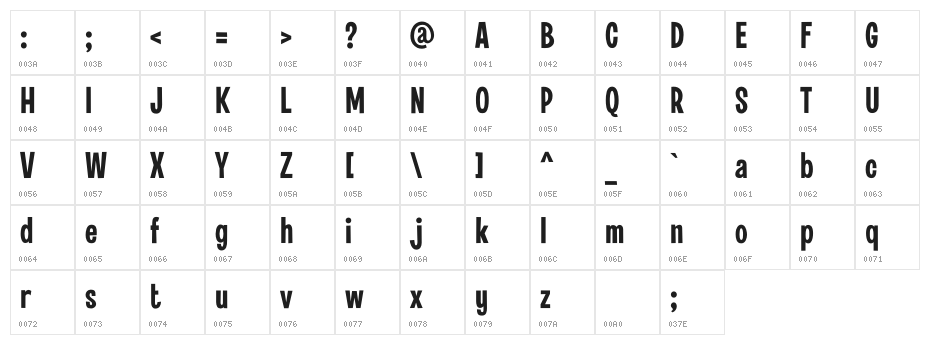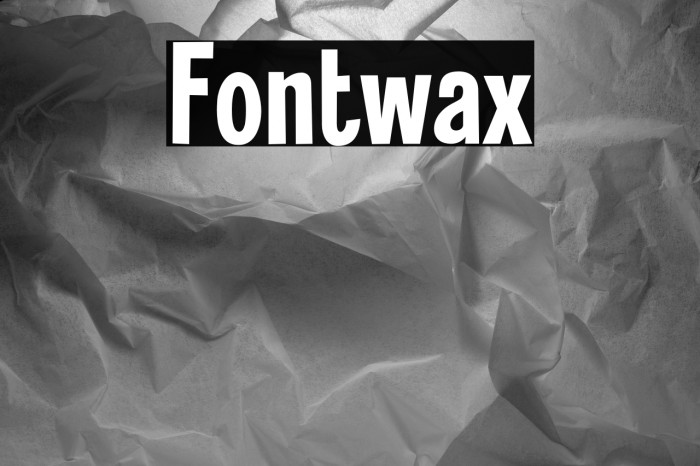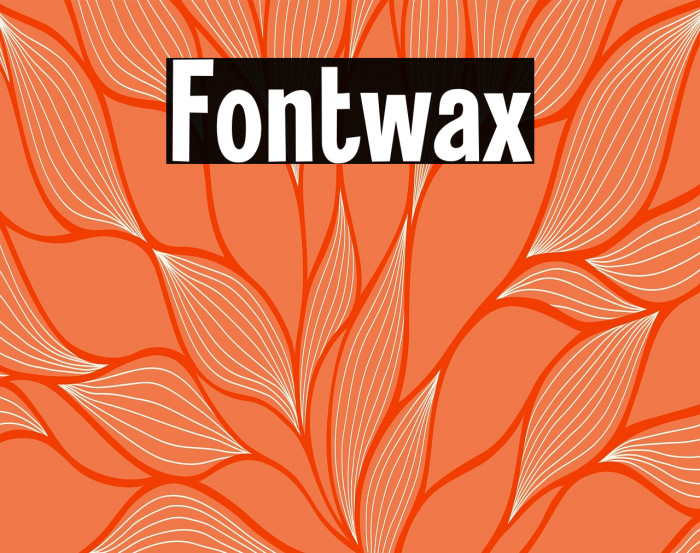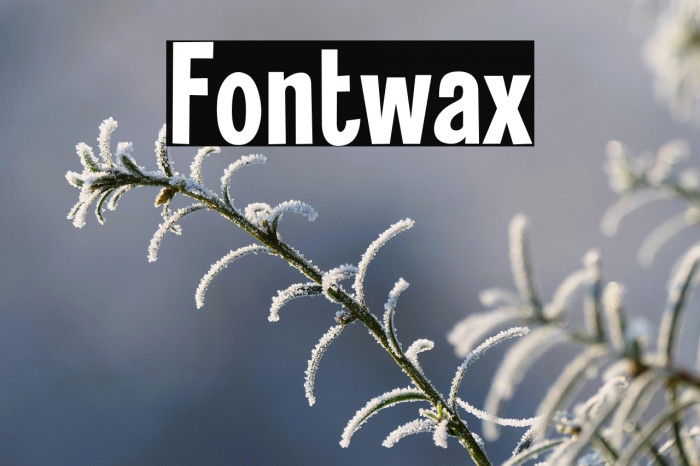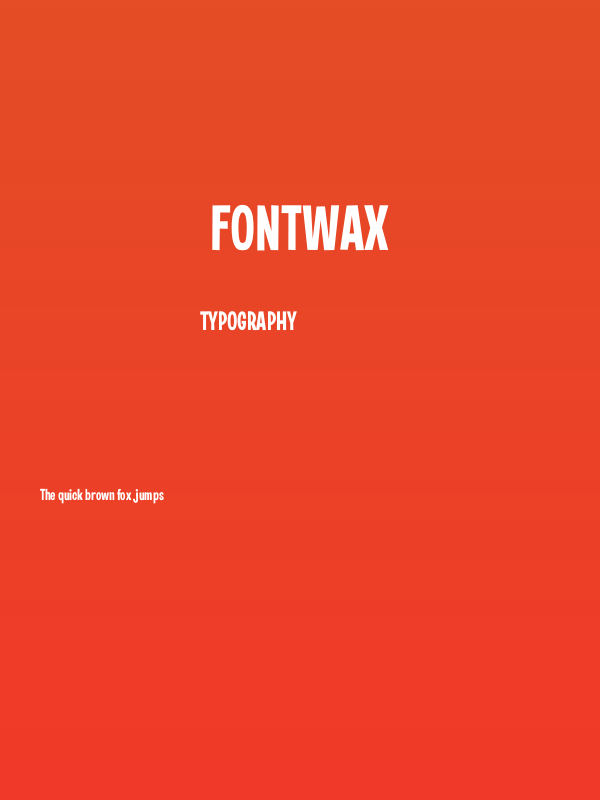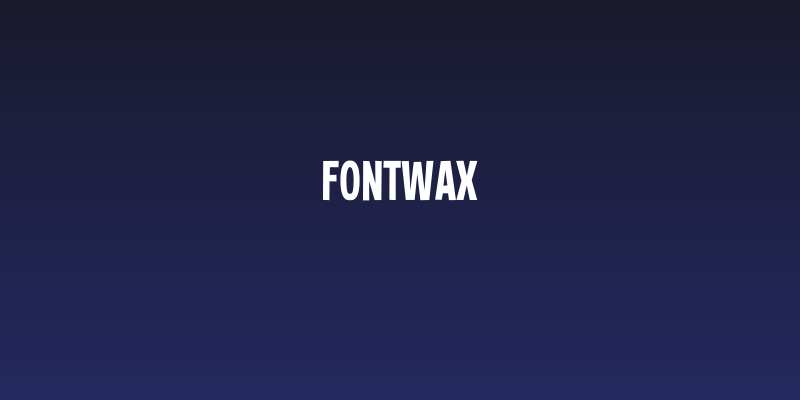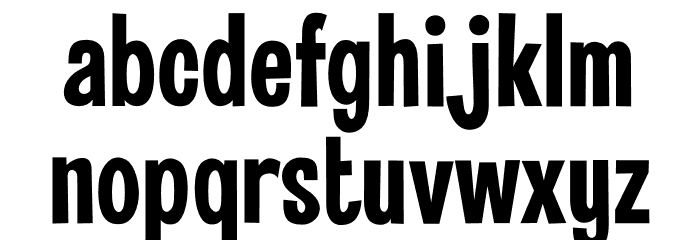
Fontwax Font
Fontwax Description
This font features bold, thick strokes with a strong presence, making it ideal for attention-grabbing headlines and impactful designs. The characters are uniformly wide, providing a sense of stability and strength. The uppercase letters are particularly prominent, with a slight curvature that adds a touch of modernity to the overall design. The lowercase letters maintain the same boldness, ensuring consistency across different text sizes. The font's clean lines and lack of serifs give it a contemporary feel, suitable for a variety of digital and print applications.
| Proposed Projects | Ideal for branding, advertising, posters, and headlines where a strong visual impact is needed. |